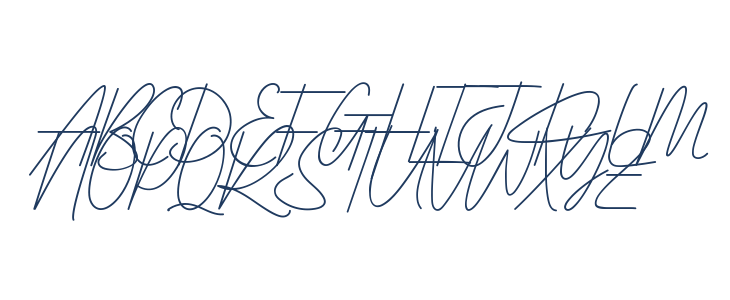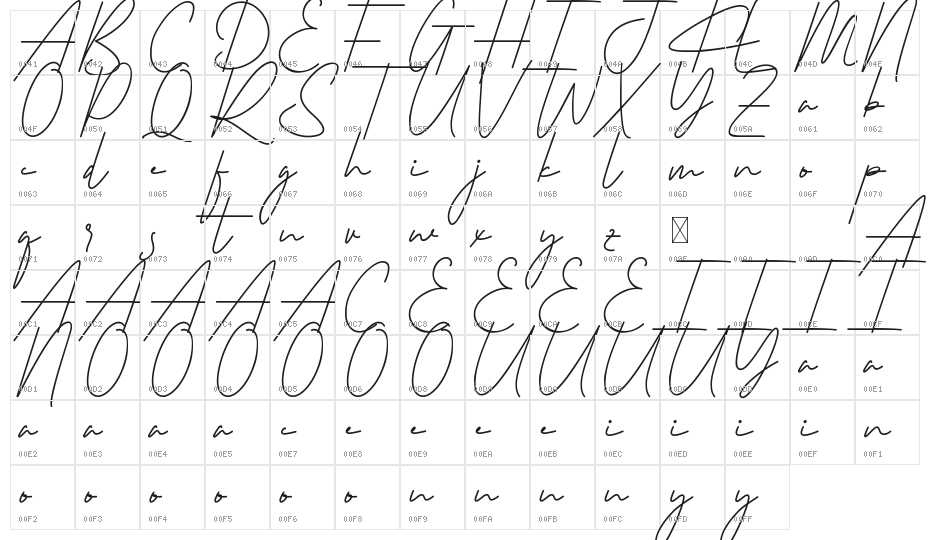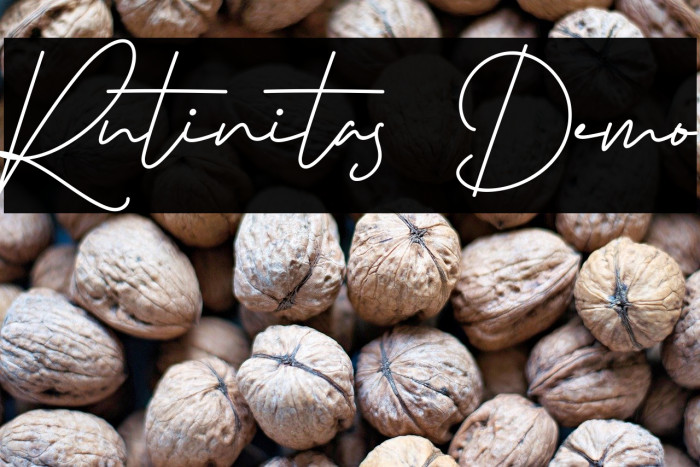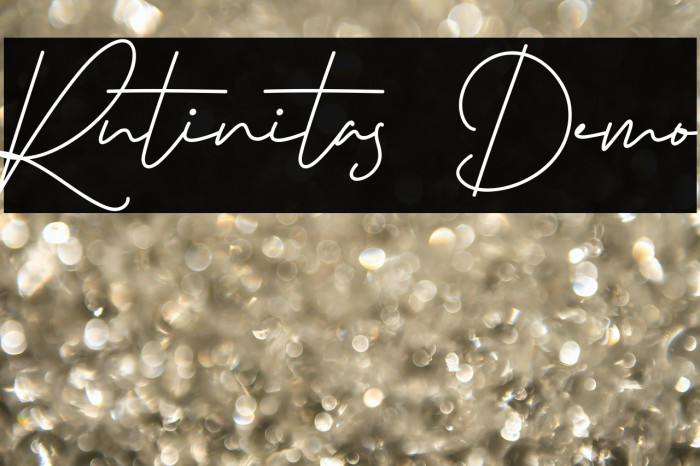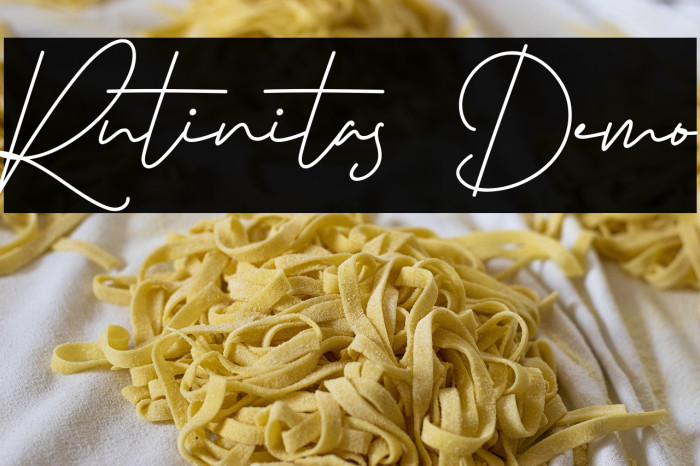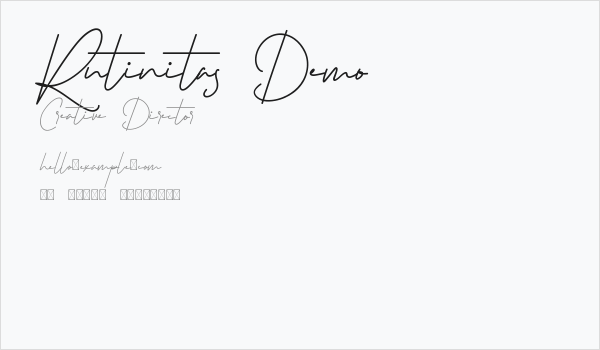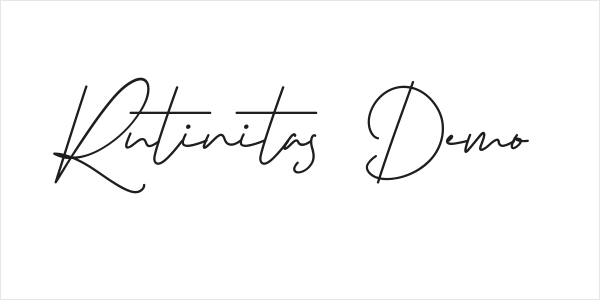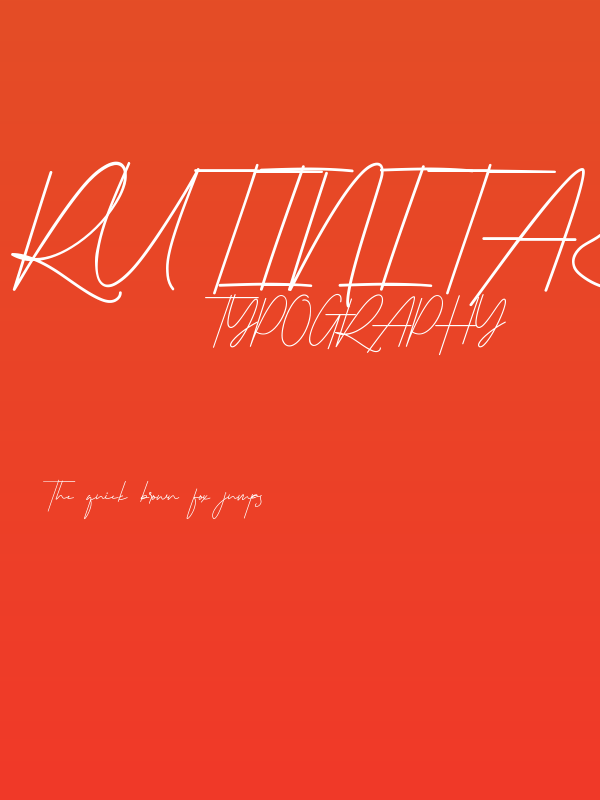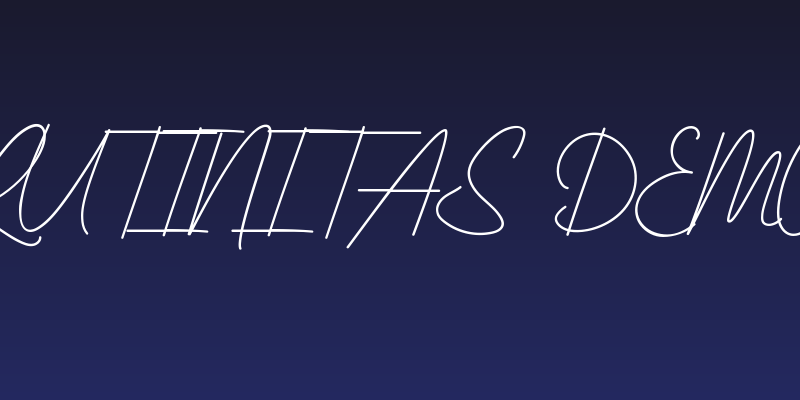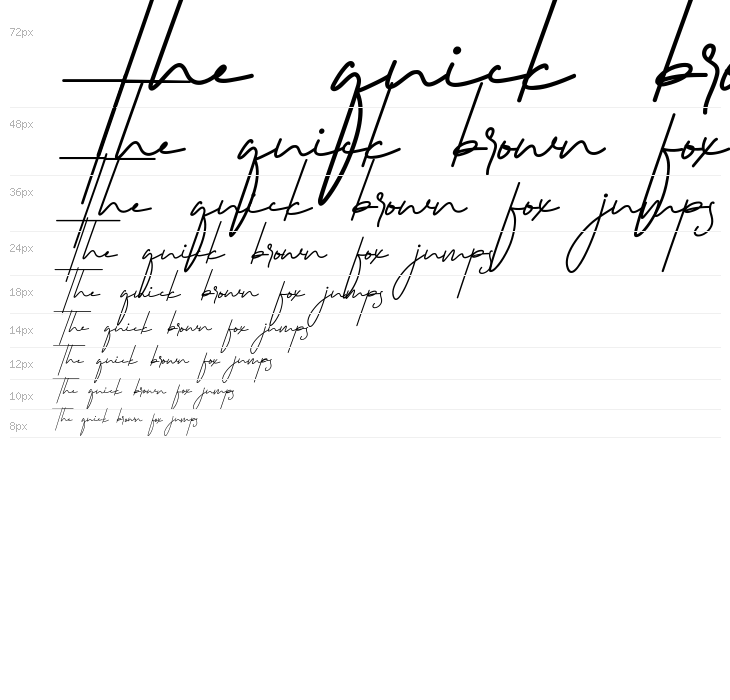
Rutinitas Demo Font
Rutinitas Demo Description
A highly stylized, monoline handwritten script with tall, narrow letterforms and dramatic ascenders and descenders. The strokes are thin and consistent, giving a delicate and airy appearance. The characters are loosely connected, mimicking casual, expressive handwriting.
| Overall Style | Decorative, Modern, Expressive |
| Use Case | Logos, Headlines, Artistic projects, Short quotes |
| Proposed Projects | Personal branding, invitations, greeting cards, artistic posters, social media graphics. |